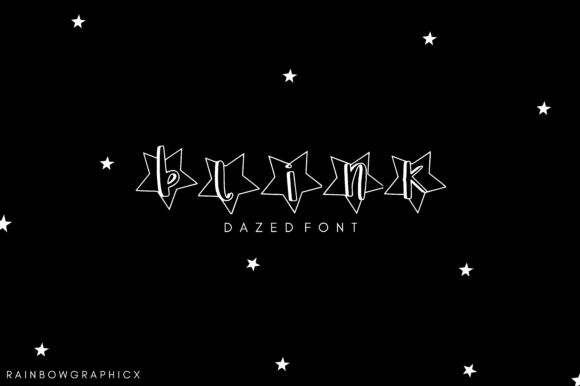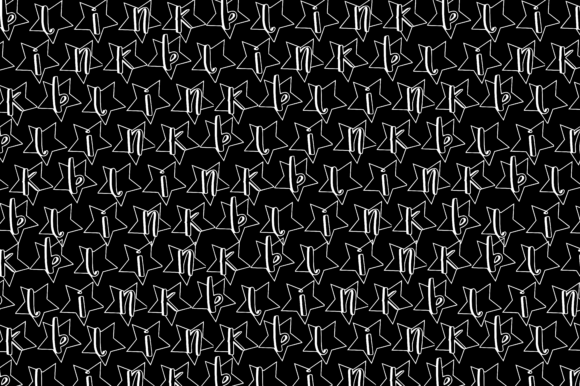
HomeScript FontsDazed Font Script Fonts Dazed Font FacebookXPinterestWhatsApp Dazed Font Poster 2 Dazed Font Poster 3 About Dazed Font Featuring incredible stars, Dazed is a fun and charming handwritten font that will make the stars align. DOWNLOAD NOW People also explored Caligea Font Cattieshine Font Finley Font Rossa Font Berry Font Heartbreaker Berry Bella Canvas 3001 Mockup T Shirt Shabrina Font Koran Font 330 0 TagsDazed Font Previous articleAppetizing Biscuits FontNext articleRidiculous Comic Font LEAVE A REPLY Cancel reply Comment: Please enter your comment! Name:* Please enter your name here Email:* You have entered an incorrect email address! Please enter your email address here Website: Save my name, email, and website in this browser for the next time I comment. Personal Use Free Evelyne Personal Use Free Read more about this font Entin Personal Use Free Read more about this font Amrina Personal Use Free Read more about this font Vilsuve Personal Use Free Read more about this font BLOG Free Fonts Risk: Why Free Fonts Can Be Dangerous for Designers Free Fonts Risk: Why Free Fonts Can Be Dangerous for Designers Using free fonts is a common practice in web and graphic design. However, the... Modern Sans-Serif Fonts That Brands Love in 2025 5 Fonts That Will Dominate Design Trends in 2026 Best Fonts for YouTube Videos: Make Your Thumbnails Stand Out